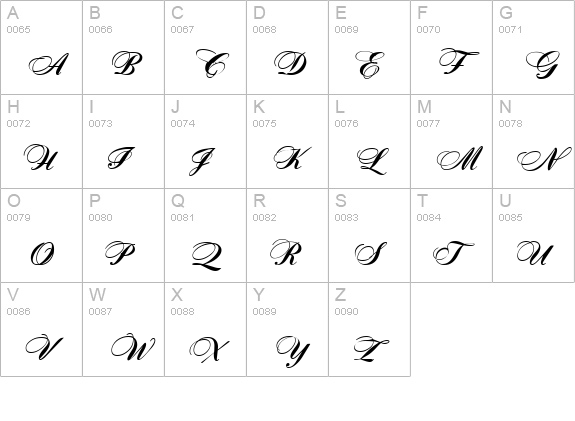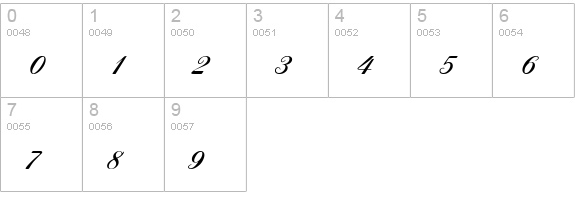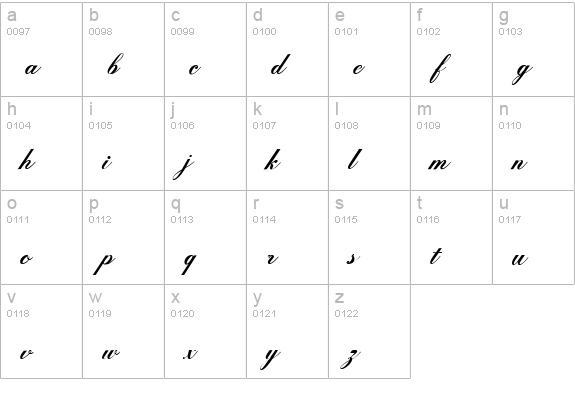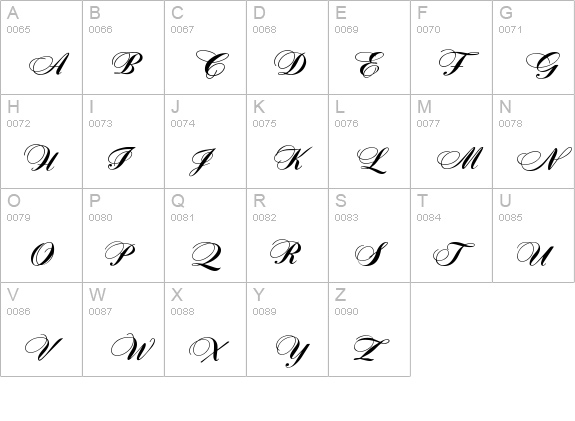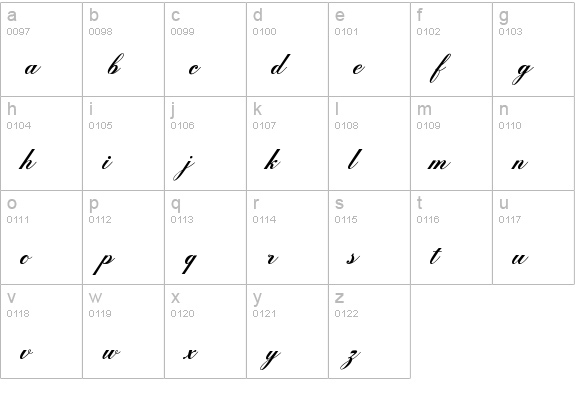
Zither Script font is a beautifully crafted typeface that exudes elegance and sophistication. Its delicate curves and flowing lines make it perfect for adding a touch of class to any design project. Whether you're creating wedding invitations, branding materials, or social media graphics, Zither Script font will make your text stand out and captivate your audience. Best of all, Zither Script font is completely free to download at FontsMarket.com. This means you can access this stunning font without any cost, making it an invaluable resource for designers on a budget. With its timeless appeal and versatility, Zither Script font is sure to become a go-to choice for all your creative endeavors. Download it today and elevate your designs with this exquisite typeface.